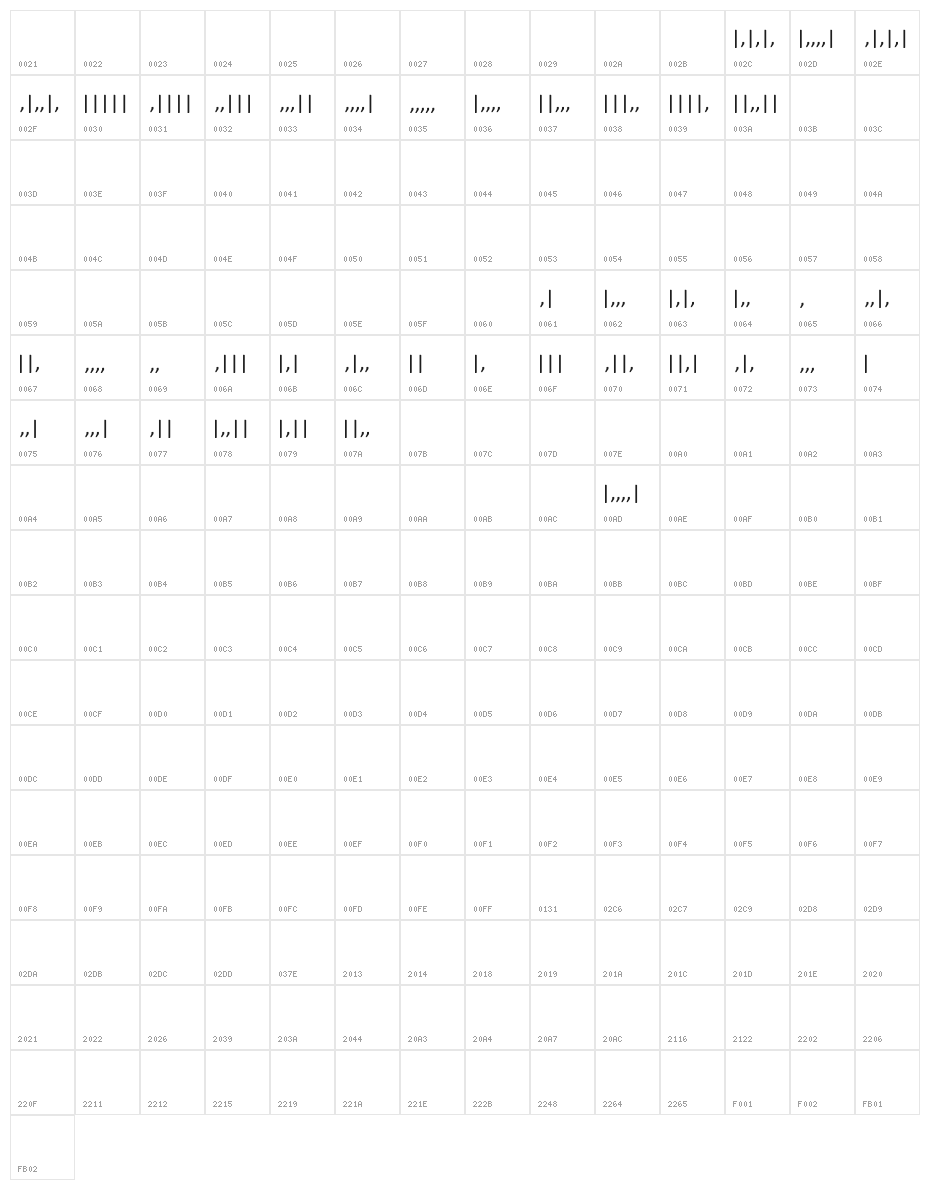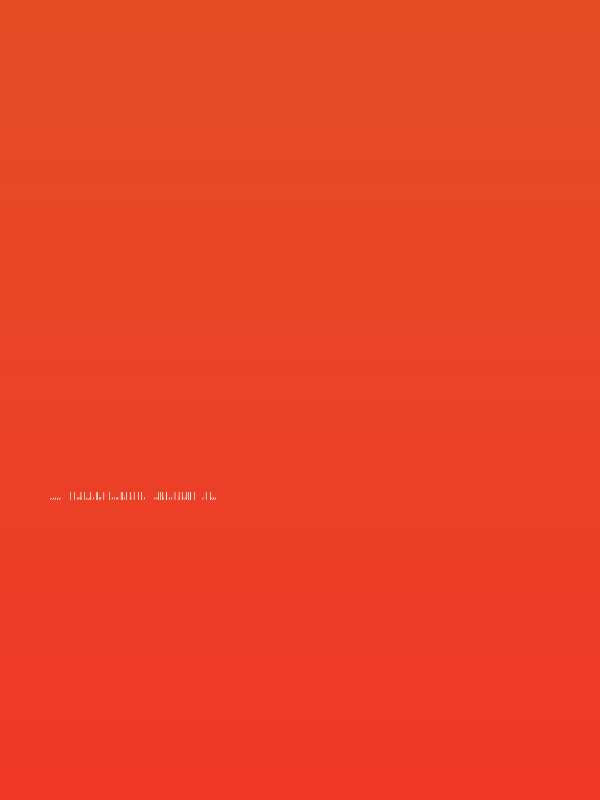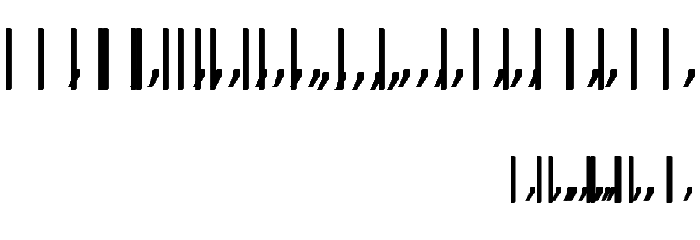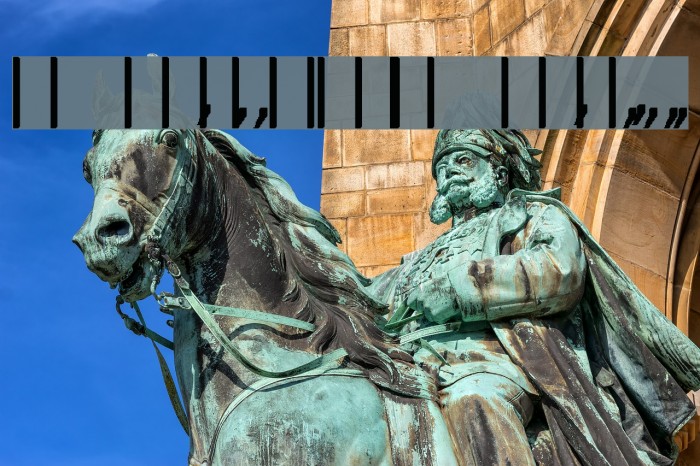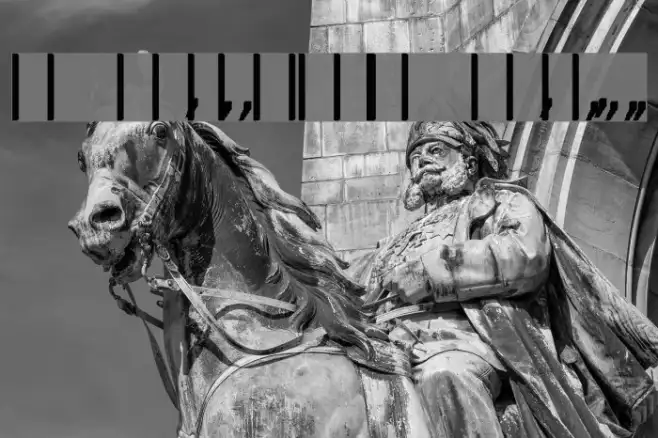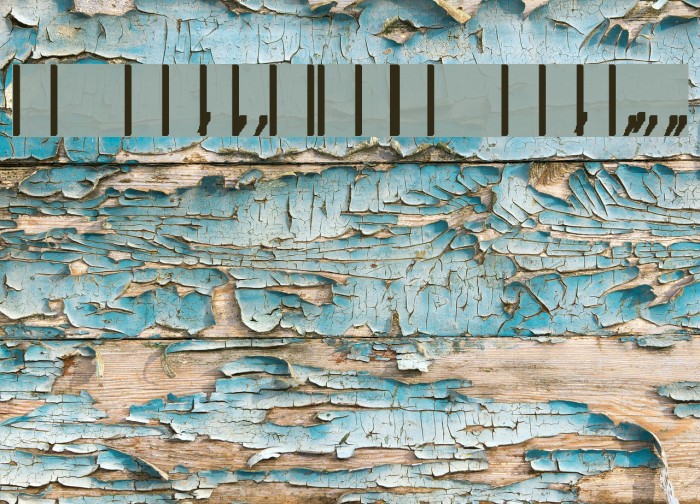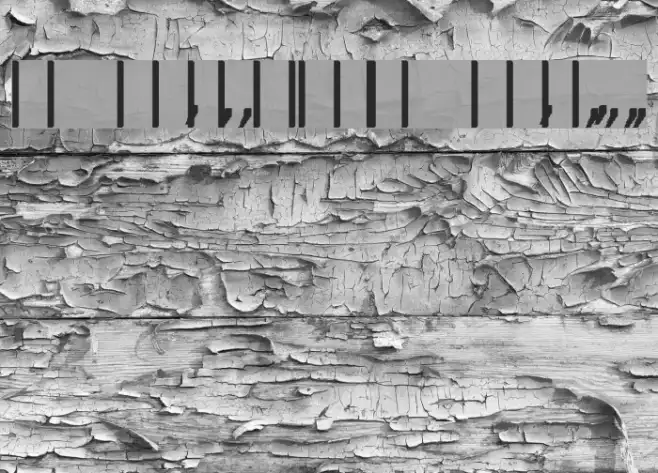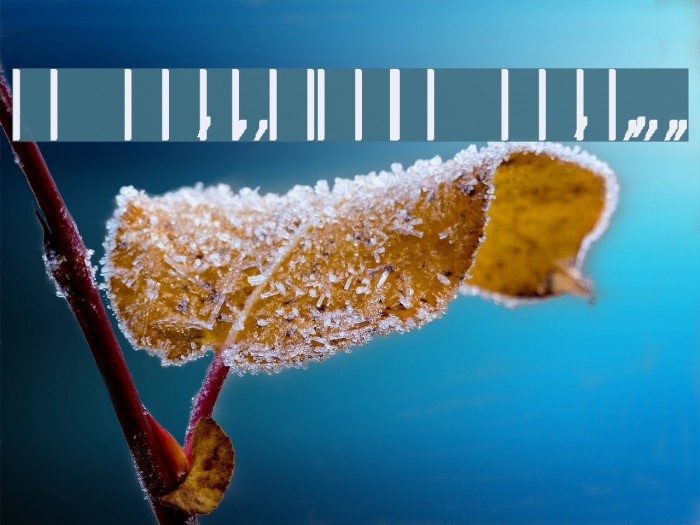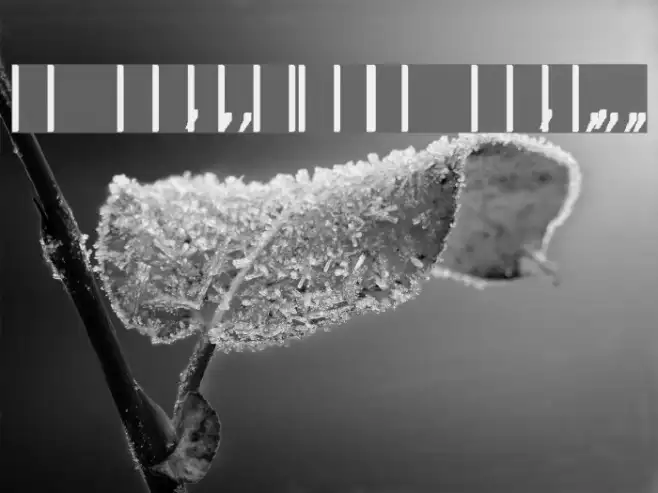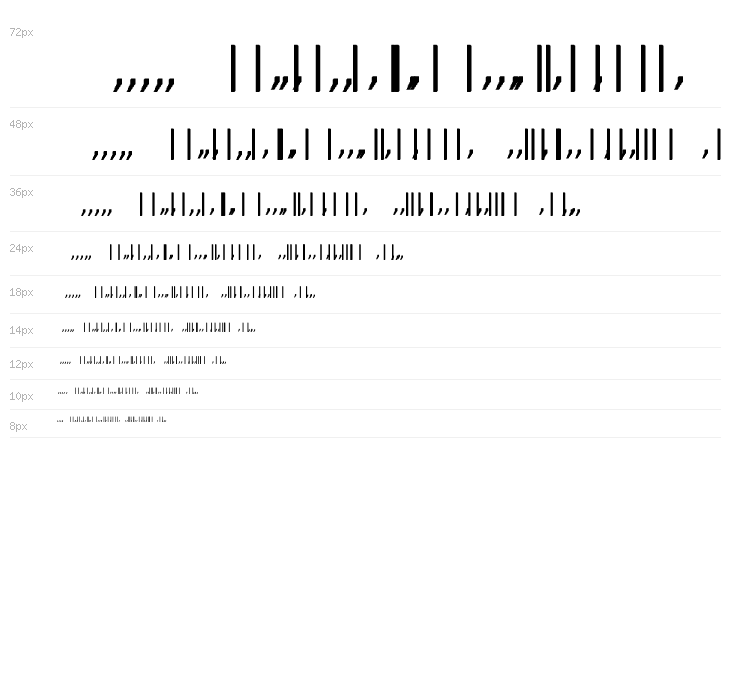
mojitomorse Font
mojitomorse Description
This typeface is a creative and unique design that mimics the appearance of Morse code, using a combination of dots and dashes to form each character. The style is highly decorative, with a playful and modern twist that makes it stand out. The characters are composed of bold, thick strokes that vary in length, creating a rhythmic pattern across the text. This font is not only visually striking but also evokes a sense of mystery and intrigue, reminiscent of secret messages and communication. Its distinctive style makes it ideal for projects that require a bold statement or an element of surprise.
| Proposed Projects | Ideal for creative projects such as posters, album covers, or branding materials that seek to convey a sense of mystery or uniqueness. |